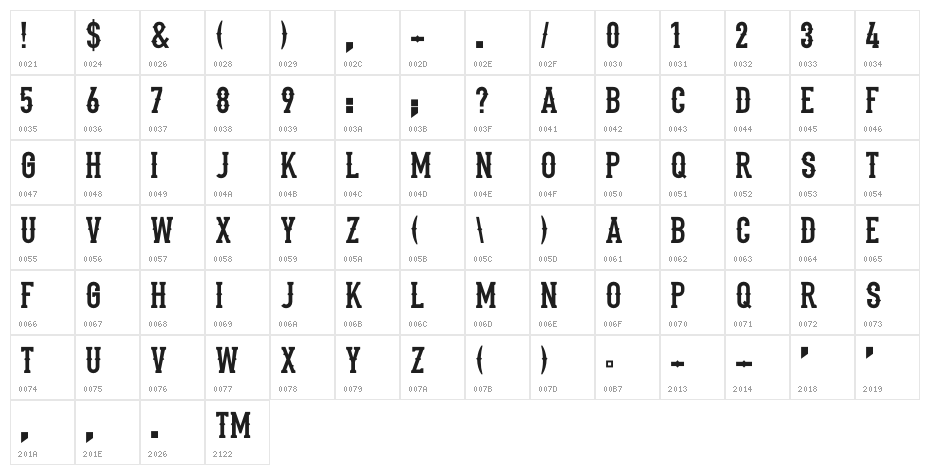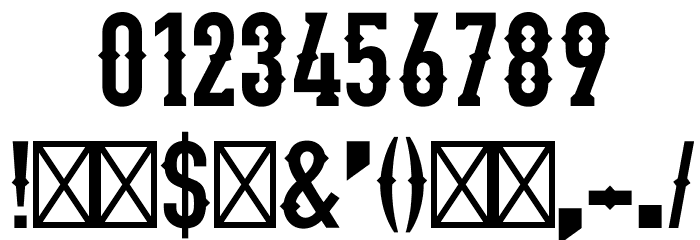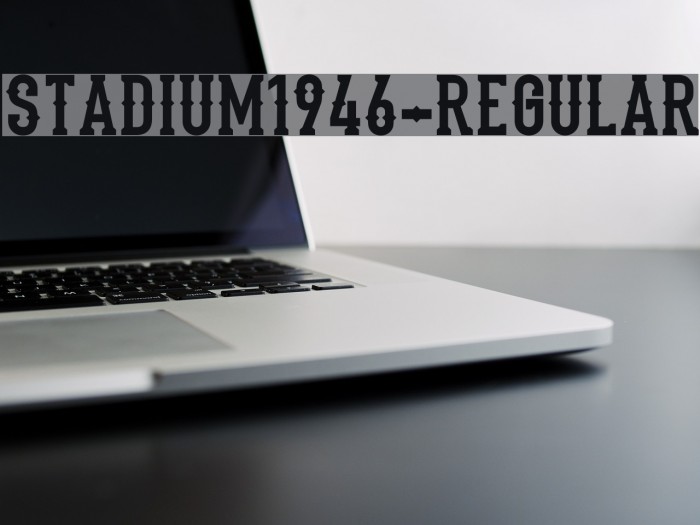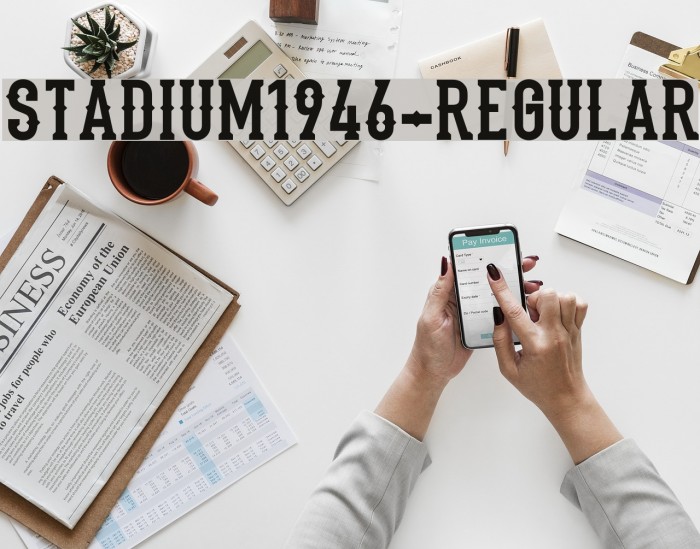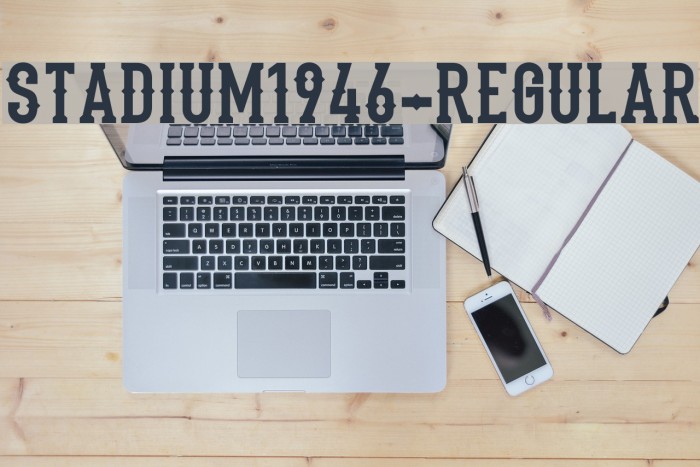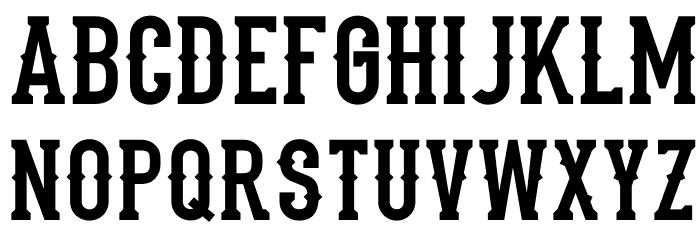
Stadium1946-Regular Font
Stadium1946-Regular Description
This font features a bold and robust design with a distinct vintage flair. The characters are characterized by thick, block-like serifs and a strong vertical emphasis, giving it a commanding presence. The uppercase letters are particularly striking, with a uniform height and width that create a sense of stability and strength. The lowercase letters maintain the same boldness, ensuring consistency throughout. Numbers and special characters are designed with the same attention to detail, making them easily legible and visually appealing. The overall style is reminiscent of classic sports or collegiate themes, making it ideal for projects that require a touch of nostalgia and boldness.
| Overall Style | Vintage |
| Proposed Projects | Ideal for sports team branding, retro-themed posters, signage, and apparel design. |